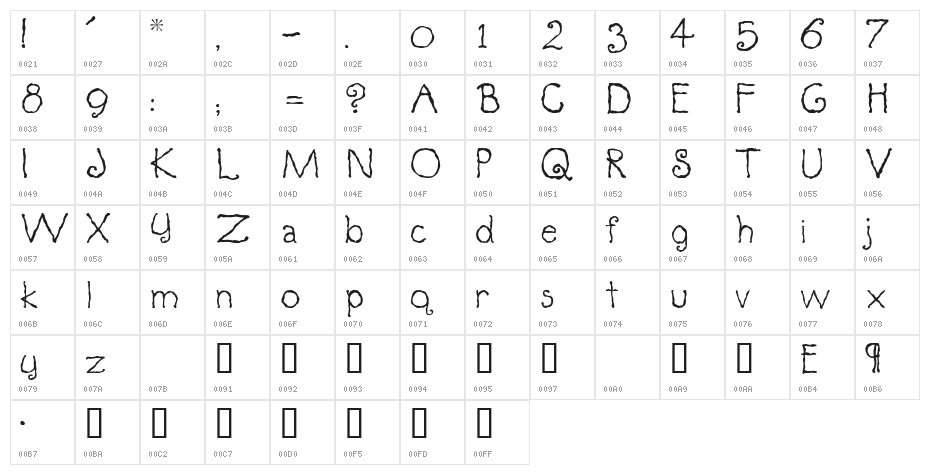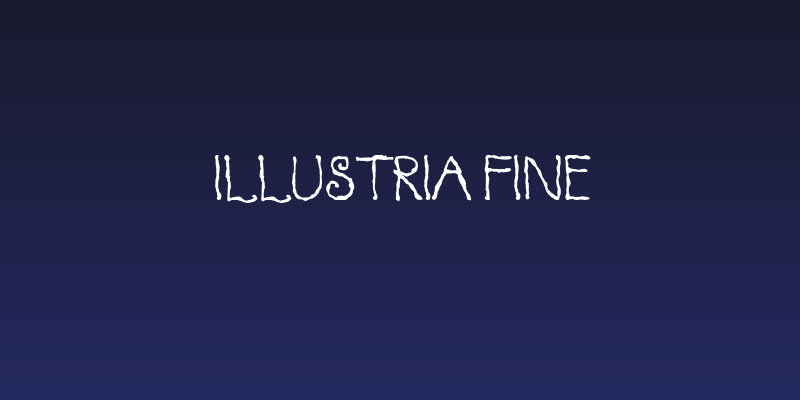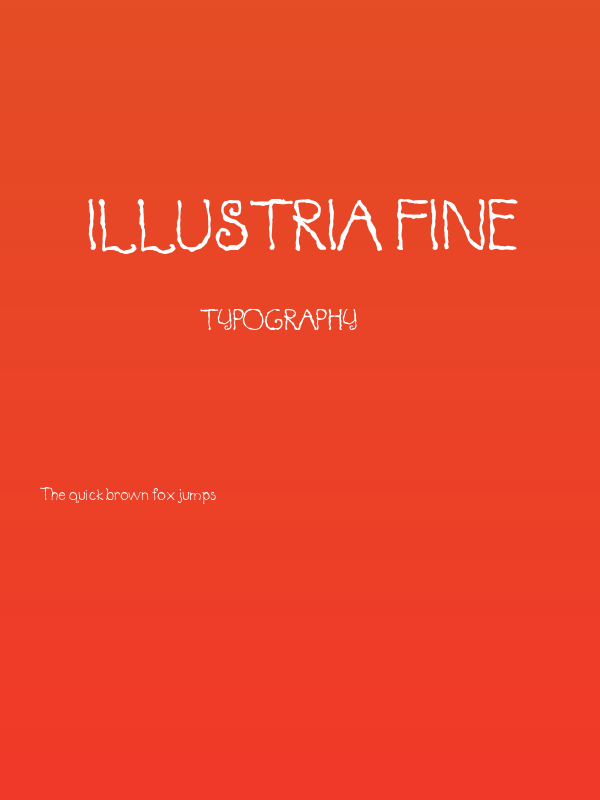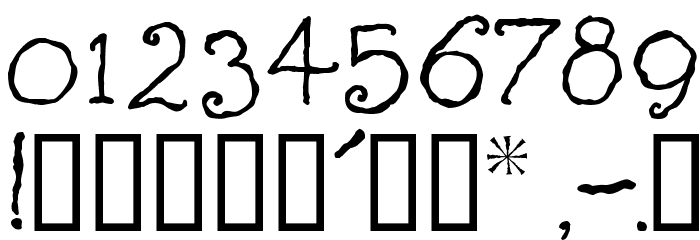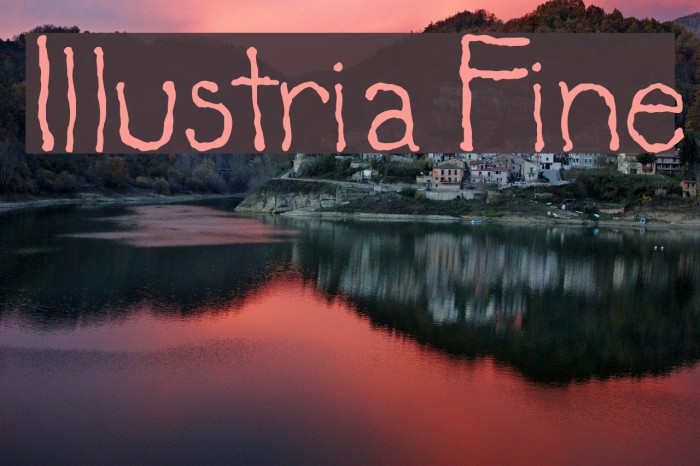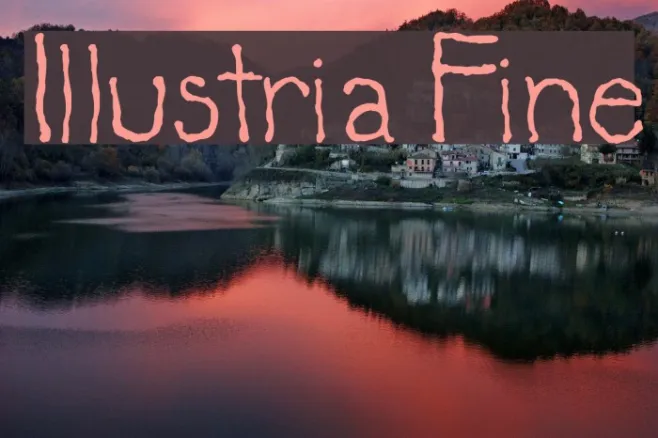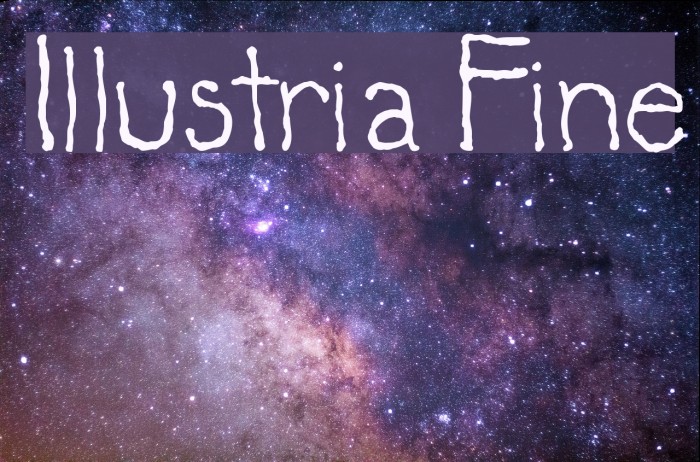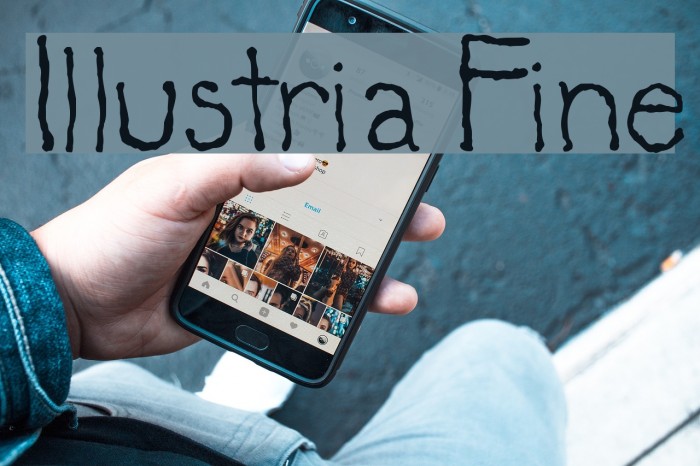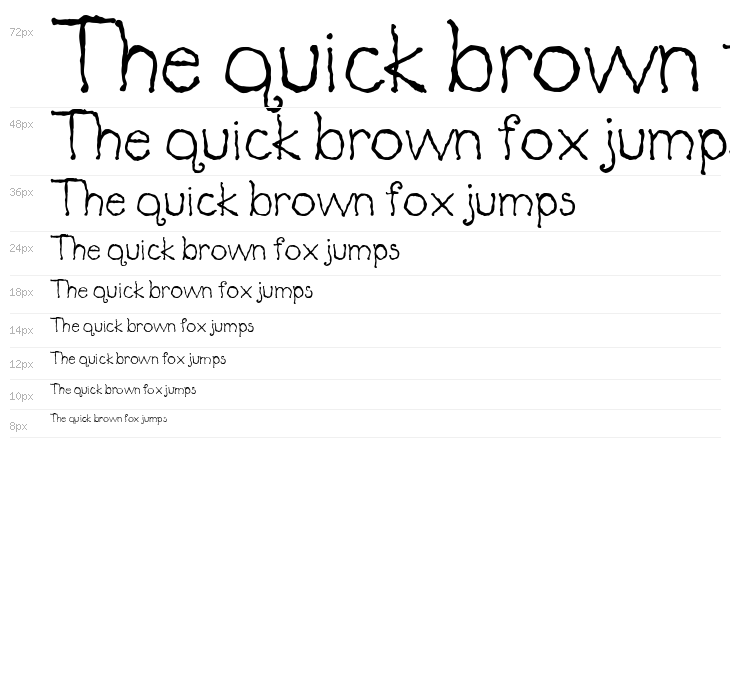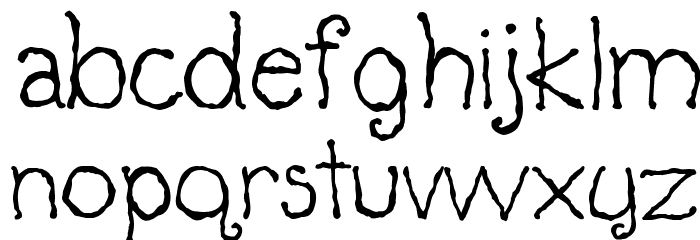
Illustria Fine Font
Illustria Fine Description
This font features a whimsical and playful design, characterized by its irregular and wavy strokes that give it a hand-drawn appearance. The letters have a unique, organic feel with varying thicknesses, adding to its charm. The uppercase and lowercase letters maintain a consistent style, with rounded edges and a slightly uneven baseline, enhancing the casual and artistic vibe. The numerals and special characters follow the same design principles, ensuring a cohesive look across all glyphs. This font is ideal for projects that require a touch of creativity and informality.
| Proposed Projects | Perfect for children's books, creative posters, artistic branding, and casual invitations. |